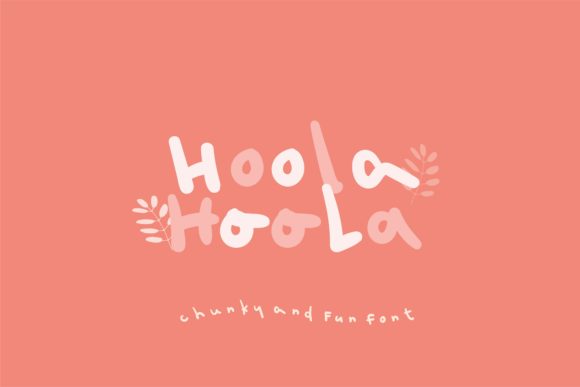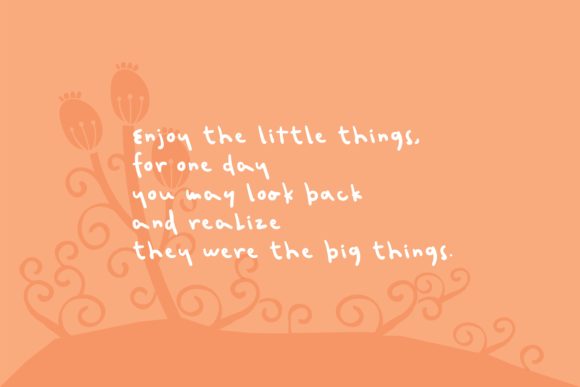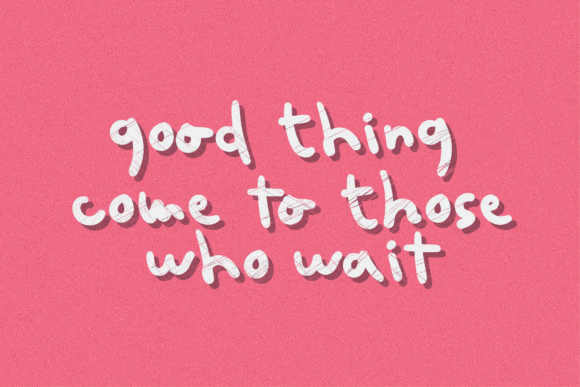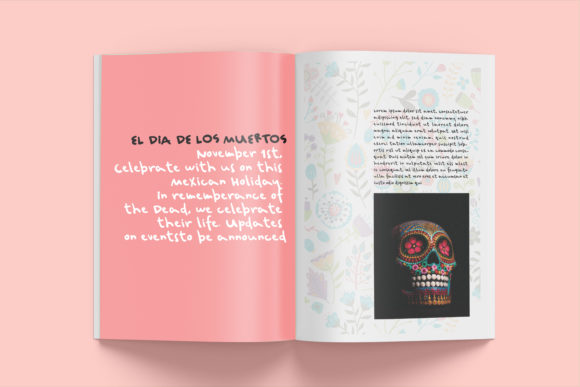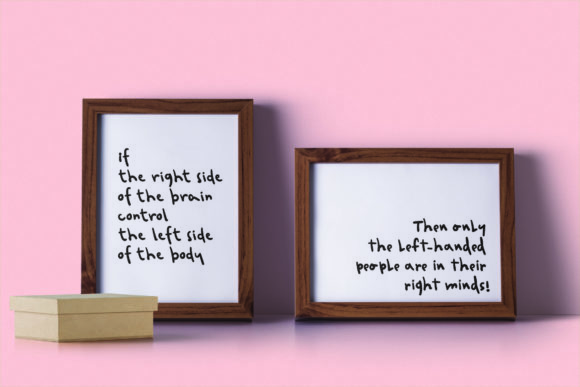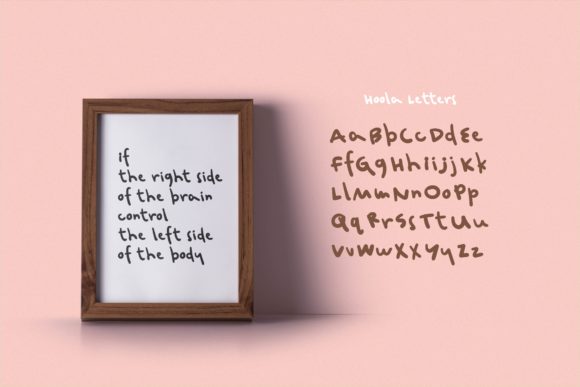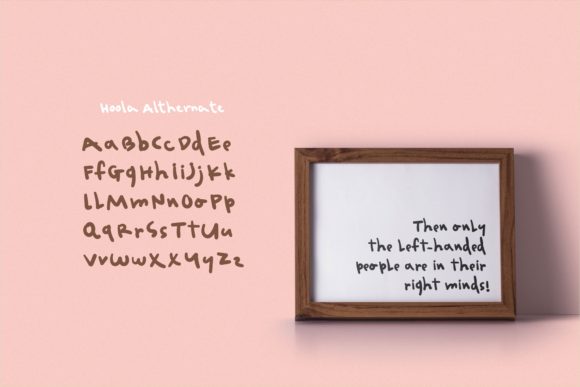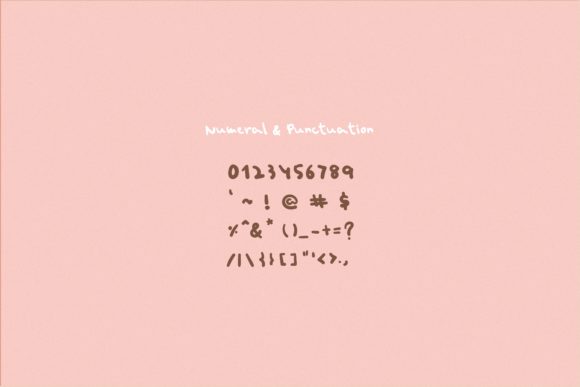
Hoola Font
About Hoola Font
Hoola is a delightful and lively handwritten font that brings a playful and cheerful vibe to your projects. With its uneven and chunky letterforms, this font is sure to put a smile on your face and inspire you to create something joyful and memorable.
The uneven nature of Hoola’s lettering gives it a charming and whimsical appeal. Each letter has its own unique shape and size, adding a sense of fun and spontaneity to your designs. Whether you’re designing a logo, creating product packaging, designing invitations, or working on a magazine layout, Hoola adds a touch of playfulness and personality.
This font is versatile and suitable for a wide range of design projects. Its bold and chunky lettering makes it ideal for branding, as it grabs attention and leaves a lasting impression. It can also be used for product packaging, adding a lively and fun element to your labels and tags. Additionally, Hoola is perfect for creating eye-catching t-shirt designs, posters, and magazine layouts that demand a playful and energetic touch.
With Hoola, you have the freedom to let your creativity run wild. Its fun and lively nature inspire you to think outside the box and create designs that are truly unique. Whether you’re aiming for a casual and carefree look or a vibrant and eye-catching design, Hoola has the versatility to deliver.
Add a splash of joy and energy to your projects with Hoola. Its uneven, playful, and chunky letterforms will bring a sense of delight and excitement to your designs. Let Hoola be the source of inspiration for your branding, packaging, invitations, and more, and watch as your creations come to life with its cheerful and memorable style.